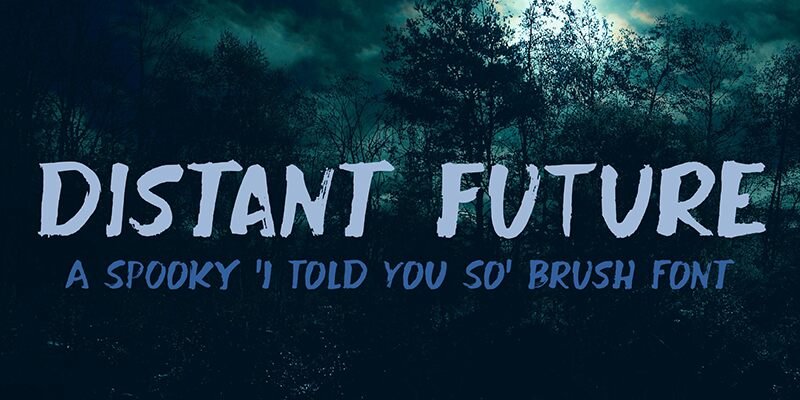
Distant Future font by David Kerkhoff is a bold brush typeface that defies conformity with its grunge presentation. Each letter in this font has noticeably irregular lines and an unfinished look, but it keeps the readability quality high. Certainly a special option for creatives who have always wanted to break out of the norm.
This free brush font can make your newspaper headlines readable and fetch more attention in magazine covers. It makes posters, T-shirt designs, business cards, logos/branding projects, book covers, brochures/flyers stand without blending in. Social media posts are also excellent platforms where you can show off your designs with Distant Future.